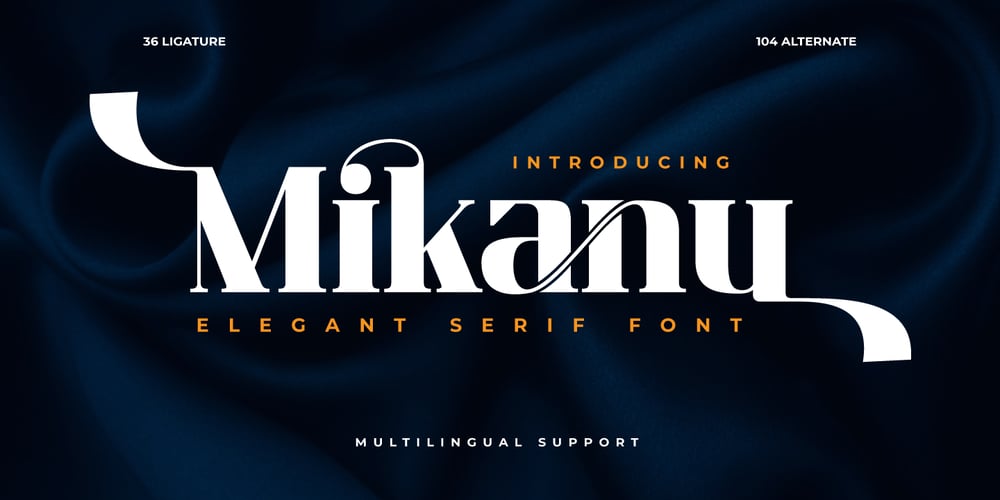
Mikanu Font Family was designed by Rozikan and published by Twinletter. Mikanu contains 1 styles and family package options. Mikanu is ideal for projects with a classic modernism serif vibe. This font’s exquisite and refined features can bring a touch of sophistication to your designs. Mikanu includes complex features such as ligatures and alternates to make your text more intriguing and unique.Not only that, but the Mikanu typeface supports multilingualism, allowing it to be utilized in a variety of languages around the world. As a result, you can quickly modify this typeface for other projects.By selecting Mikanu as the font for your project, you will receive a high-quality product that will enhance the visual message you want to portray. Use Mikanu right away to add aesthetic value to your design!What’s Included :- File font- All glyphs Iso Latin 1- Alternate, Ligature- Simple installations- We highly recommend using a program that supports OpenType features and Glyphs panels like many Adobe apps and Corel Draw so that you can see and access all Glyph variations.- PUA Encoded Characters – Fully accessible without additional design software.- Fonts include Multilingual support